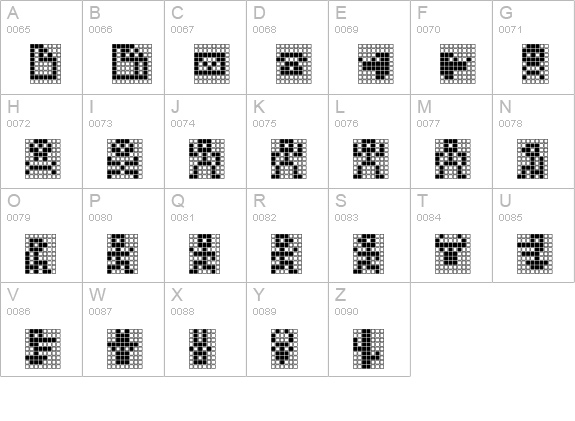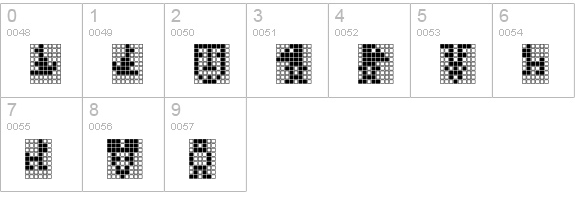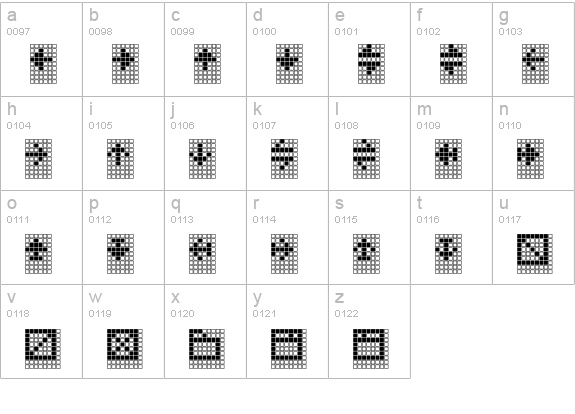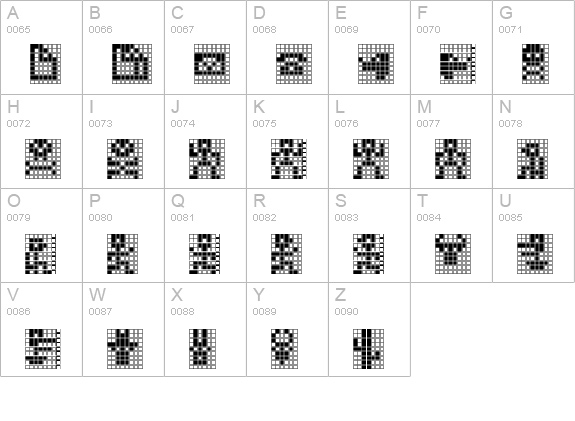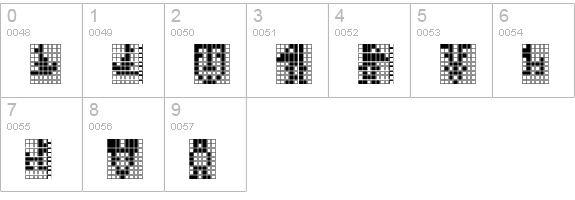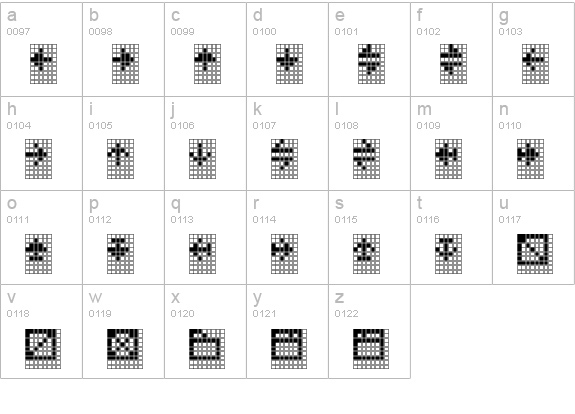
TPF Display Symbol font is a captivating and versatile typeface that will add a touch of elegance and sophistication to any design project. With its unique and intricate symbols, this font is perfect for creating eye-catching logos, icons, and signage. The TPF Display Symbol font offers a wide range of symbols that are beautifully crafted and meticulously designed. From arrows and geometric shapes to celestial symbols and musical notes, this font has everything you need to visually communicate your message in a visually appealing way. One of the standout features of the TPF Display Symbol font is its versatility. Whether you're working on a professional presentation, a creative project, or simply want to add a touch of flair to your personal designs, this font has you covered. It can be easily scaled and customized to fit any size or style, ensuring that your designs always look their best. One of the best aspects of the TPF Display Symbol font is that it is available to download for free at FontsMarket.com. This means that you can enjoy all the benefits of this stunning font without having to spend a penny. Simply head over to FontsMarket.com, download the font, and start incorporating it into your designs today. Overall, the TPF Display Symbol font is a must-have for any designer or creative professional. Its elegant and intricate symbols, versatility, and the fact that it is freely available to download at FontsMarket.com make it an essential addition to your font collection. So why wait? Download the TPF Display Symbol font now and let your creativity soar.